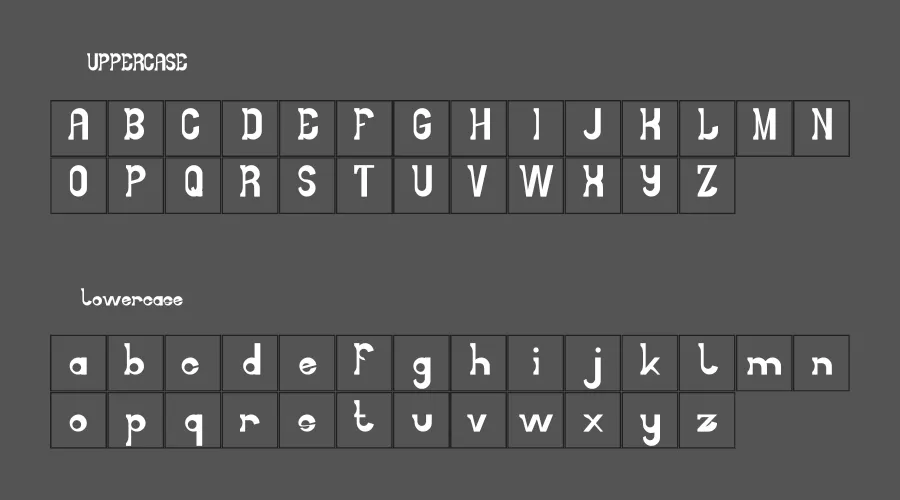
Little Cowboy Font
About Little Cowboy Font
This font contains various types of alphabet characters such as uppercase letters, numerals, digits, symbols, numeric, digits, and punctuations. It has an online generator tool, in which you may change all your simple textures into stylish and trendy shapes.
When this font was published in the font world, it gained soo much popularity because it has a good-looking and attractive texture look.